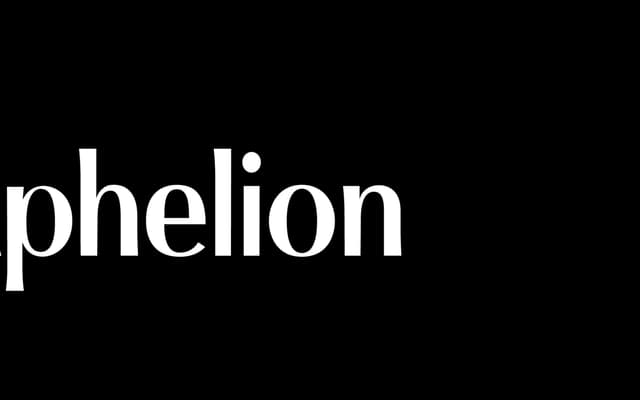
A humanist sans with measured stroke contrast, designed for flexible use across a range of tones and applications.
Aphelion draws on humanist sans conventions, balancing thicker and thinner parts of each character to produce a face that reads as both warm and adaptable. The contrast gives it more character than a neutral geometric, without committing to the quirkiness of a fully calligraphic humanist. Suited to editorial, branding and interface work where a human quality is wanted without overt personality.
The foundry explicitly describes Aphelion as a humanist sans, with contrast between thick and thin strokes characteristic of that subtype.